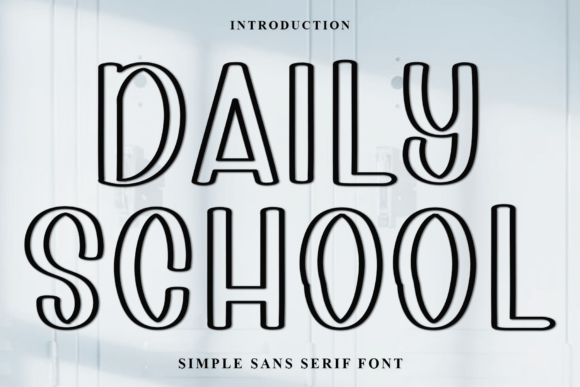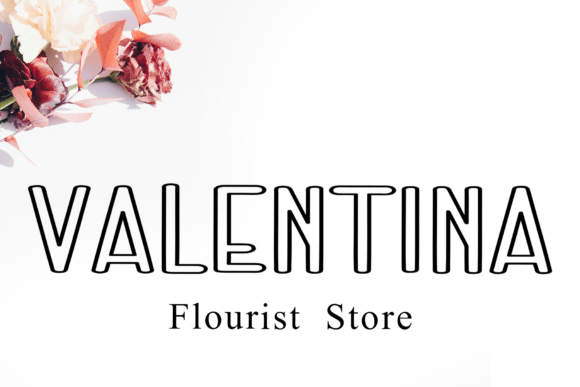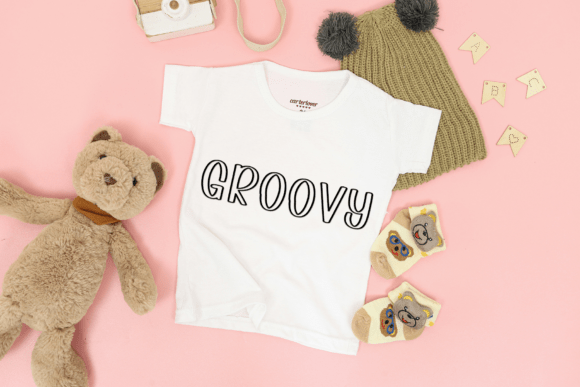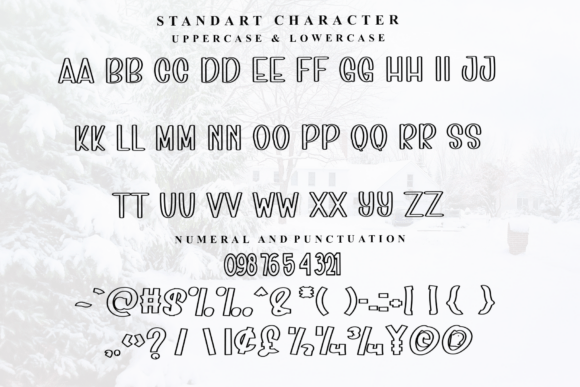
Daily School Font
About the Daily School Font
Introducing the Daily School Font, a beautifully crafted typeface designed to elevate your creative projects. Daily School is a sweet and friendly handwritten font. Its natural and unique style makes it incredibly fitting to a large pool of designs. The only limit is your imagination!
Daily School’s friendly, handwritten style works best in headlines, short paragraphs, and playful branding applications like children’s books, stationery, or social media graphics. It adds a touch of warmth to packaging designs or short marketing materials. However, its informal nature makes it unsuitable for body text, long-form content, or UI elements requiring high readability.
The font’s inherent charm pairs well with clean sans-serif fonts like Open Sans for a balanced contrast, or with a playful script like Pacifico for a more whimsical feel. A geometric sans-serif, such as Montserrat, offers a modern counterpoint while retaining the overall approachable mood.
Daily School’s core personality is undeniably friendly and approachable, conveying a sense of childhood innocence and lightheartedness. This makes it ideal for projects that wish to communicate approachability and warmth.
Daily School Font Usage Examples
Daily School Font Example